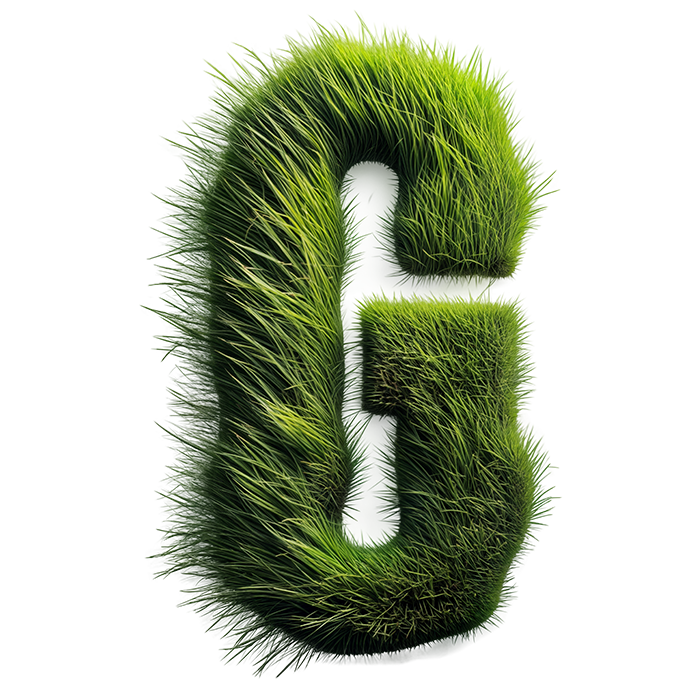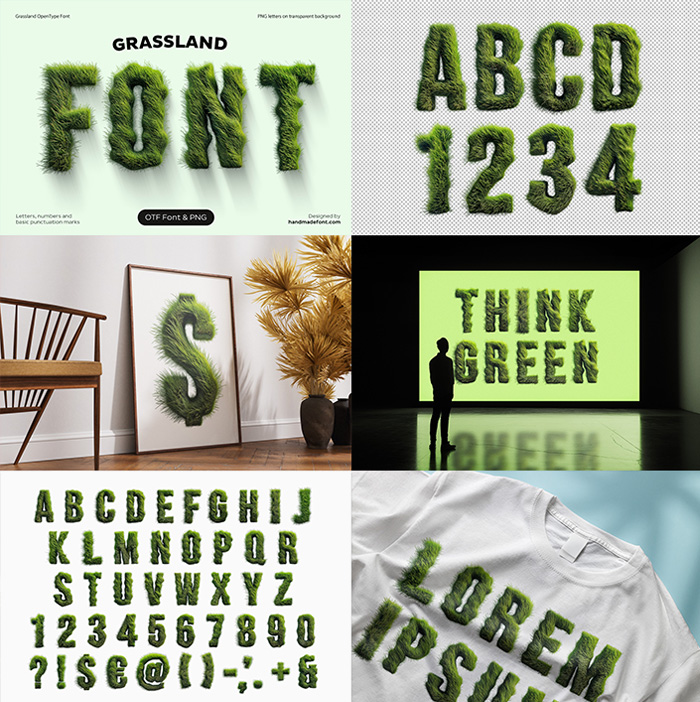
Grassland Font. Wild Upright Grass Letters
Fat rounded capitals buried under thousands of upright grass blades that lean out past every edge, dark at the roots and almost yellow at the tips. The Grassland Font keeps wide strokes and open counters, so words still read from across a room. Figures, currency signs and punctuation grow the same coat.
A Meadow Standing Up Straight
Naturally the first thing you notice is that nothing lies flat. Thousands of blades stand upright and lean outward, so every capital bristles along its edges. The green runs fresh and bright, darker at the roots and almost yellow at the tips. Light passes through the thinner blades too, which gives the letters real depth. Because the growth is uneven, no two glyphs bristle the same way. Look closely and short new shoots push up between the longer blades.
Rounded Sans Under the Blades
Underneath, of course, the letterform is a fat rounded sans. Wide strokes and generous counters stop the grass from swallowing the shape. That balance matters, since a texture this busy usually destroys smaller text. Here the words still read from across a room. In addition, figures, currency signs and punctuation grow the same coat. Besides, a second colourway threads small blossoms through the blades. In addition, the texture never flattens into a printed pattern.
Animated grass letters of the Grassland Font spelling the word font
Where the Grassland Font Grows
Garden brands, lawn care, eco campaigns and sports turf all reach for this one. Festival posters, farm packaging and picture books use it happily too. Because the green is so saturated, pale grounds flatter it most. If you want daisies growing through the grass, Daisy Font does that instead. Above all, give it room and let the blades breathe. Because it photographs so well outdoors, signage and packaging both work.
Title card for the Grassland Font with the word font grown from grass
Alphabet and numerals of the Grassland Font laid out on a pale ground
Yellow building billboard carrying the Grassland Font name in grass letters
Dark hall screen showing a two-word green message in the Grassland Font
White t-shirt printed with placeholder wording in the Grassland Font
Pale green panel with a short line about grass set in the Grassland Font
Dark poster with a short line about grass set in the Grassland Font
Framed currency symbol from the Grassland Font standing in a room
Ampersand and question mark of the Grassland Font covered in grass blades
Letters A to D and figures one to four of the Grassland Font on a transparent background